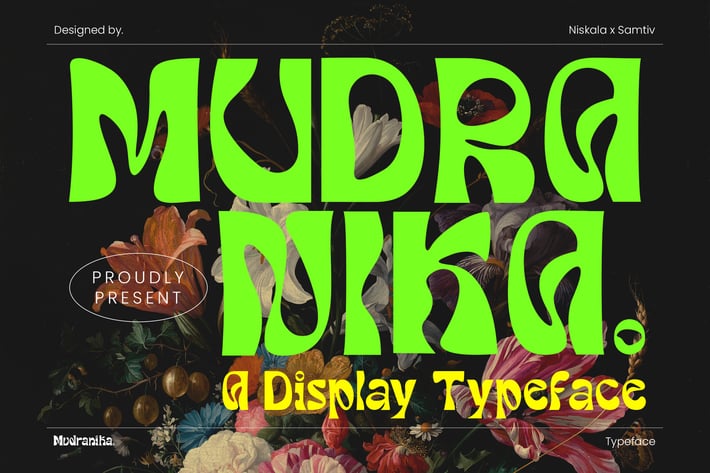
Mudranika - A Display Typeface
Mudranika is an awesome with Classic Retro cutouts, and a dynamic slant. Ideal for Poster titles, menu flyer, Packaging, Logo and monograms or other modern dynamic text. Mudranika compares favorably with legibility and size, creating the effect of power. Designed as a fast and dynamic font, but with a slightly different font design, check it out and grab it right away.